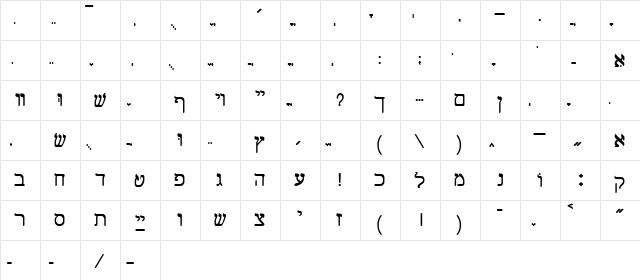
Design Context for HebrSquare Baecker Typeface
HebrSquare Baecker takes a measured approach to typography — its balanced proportions and neutral character make it a reliable workhorse for both digital and print work.